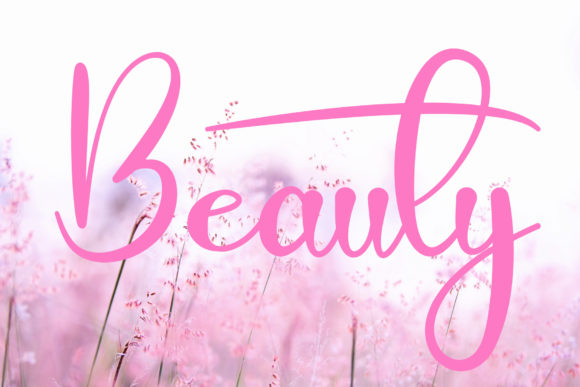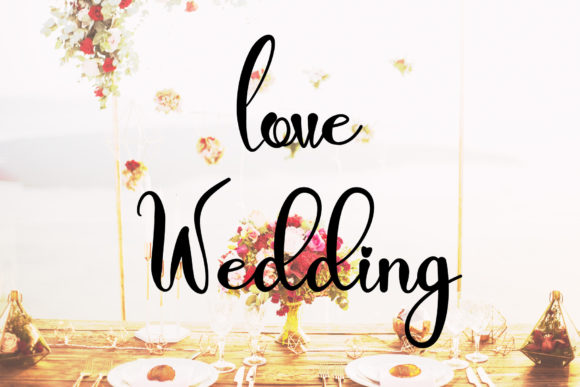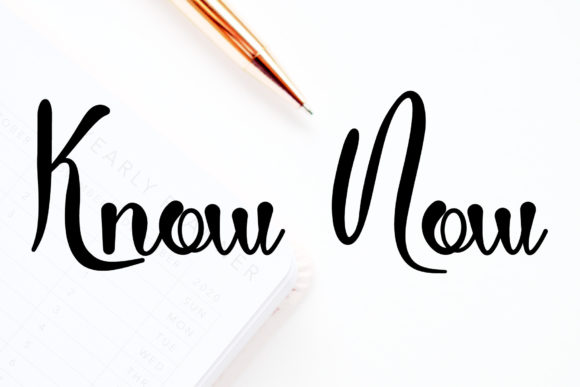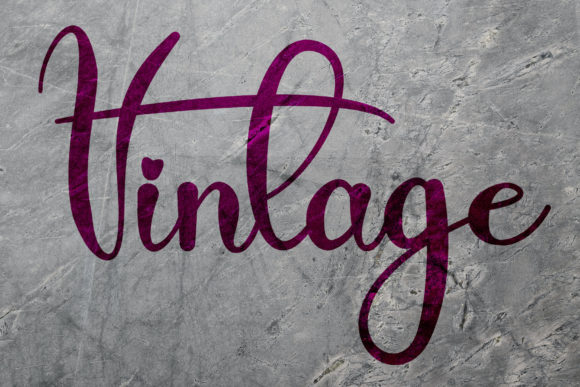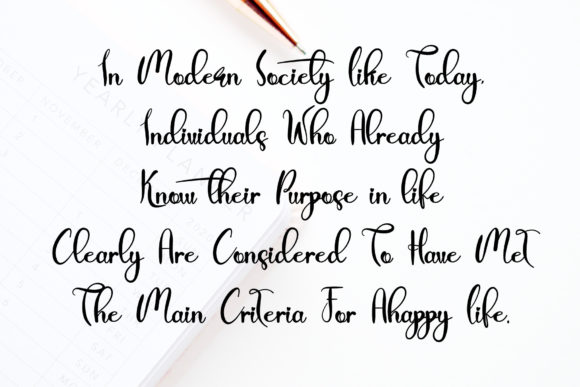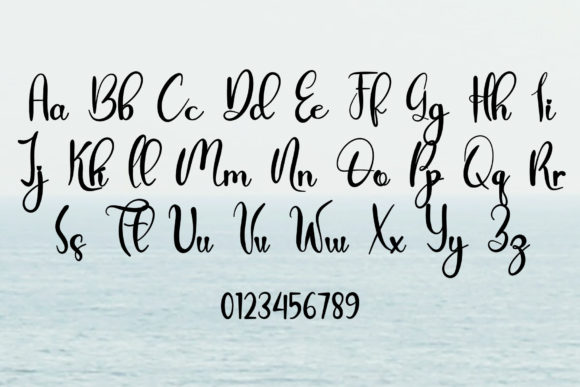
Introduction to Runstay Font
Runstay is a handwritten font with a contemporary atmosphere and impeccable form.
Not too thin and not too thick, balanced and varied, this font was designed to enhance the beauty of your projects This font will be ideal for writing wedding invitations, cards, or any other design that may need a romantic, personalized touch.